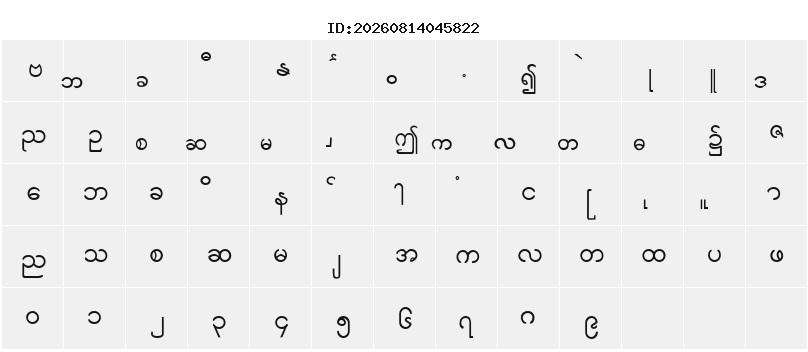
• Font Name: Suu Kyi
• Font Style: Burma
• Full Font Name: Suu Kyi Burma
• Copyright: Font set created by Soe Pyne in honor of Nobel laureate Aung San Suu Kyi and the freedom fighters dedicated to the cause of restoring democracy in Burma.
Suu Kyi.ttf is a modern, elegant sans-serif font designed for ultimate readability and visual harmony. Perfect for branding, headlines, web design, and print materials.